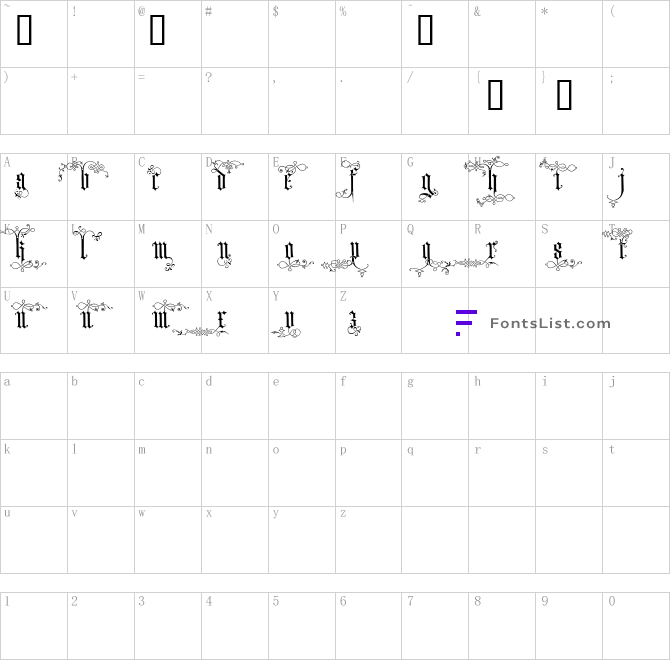
- Font Name:Ardenwood Demo
Ardenwood-Demo.ttf is a very beautiful artistic font, Ardenwood-Demo.ttf is widely used in the design and printing of various books and pictures,Ardenwood-Demo.ttf has a strong visual impact,Ardenwood-Demo.ttf is a commonly used font in newspapers, magazines and books, and is used in posters, e-commerce Poster design, store design, logo design, font design and other fields.Ardenwood-Demo.